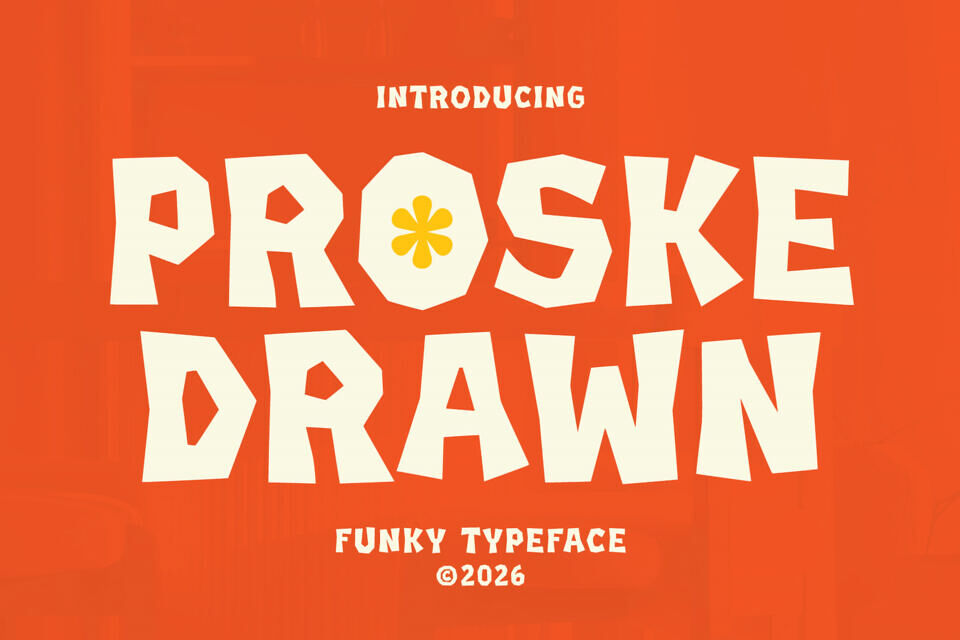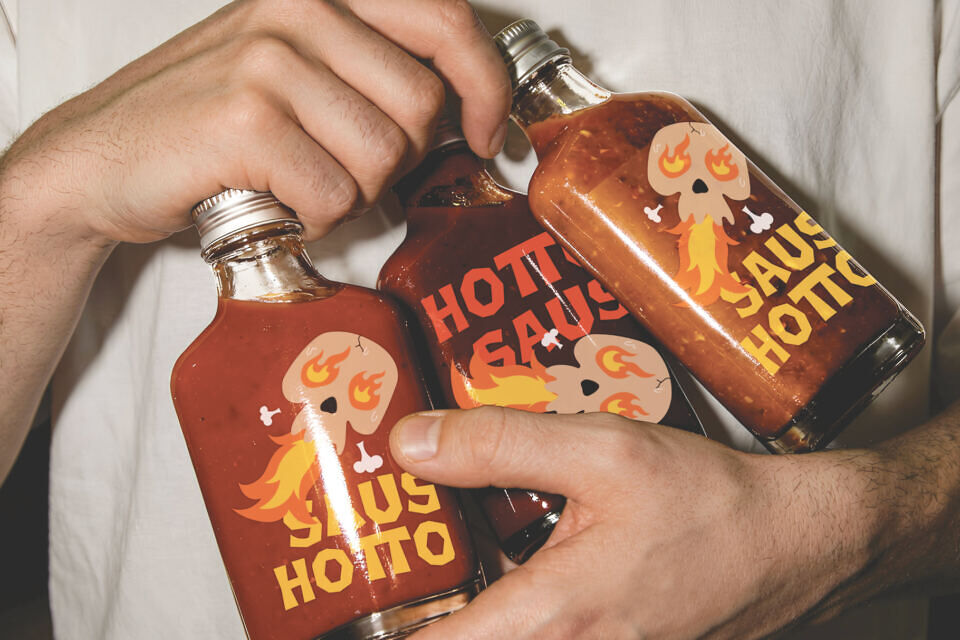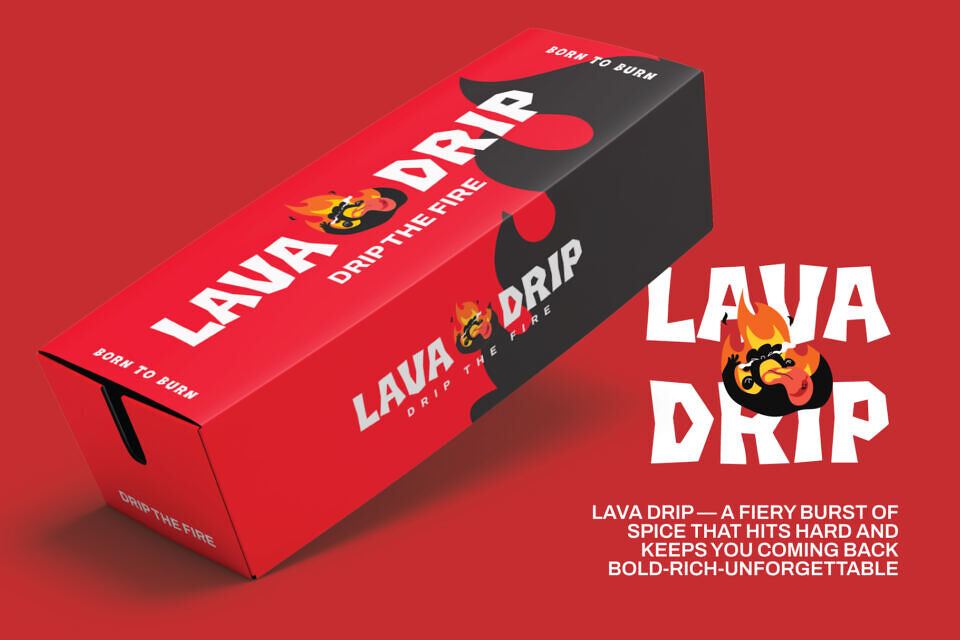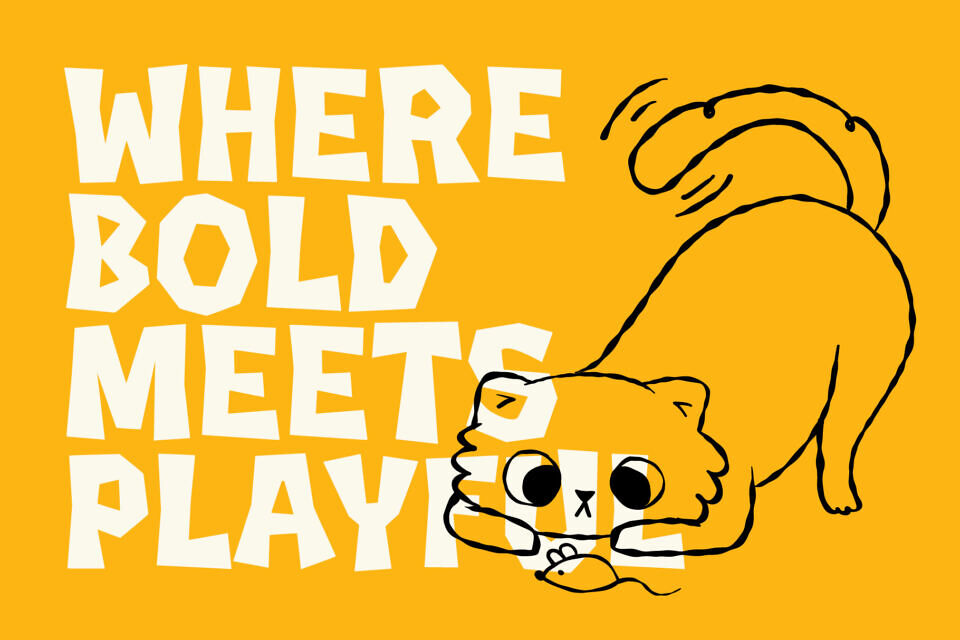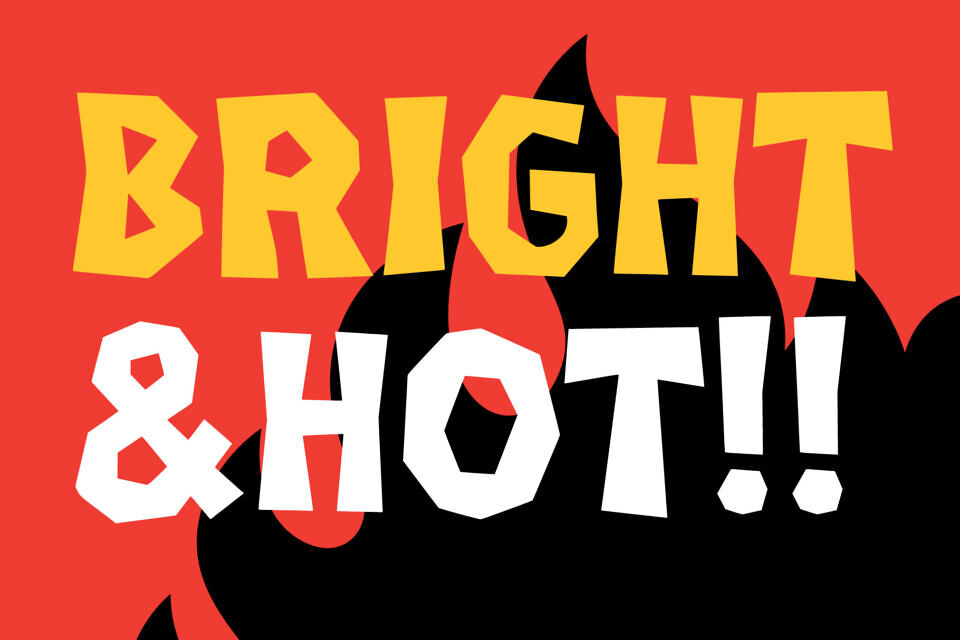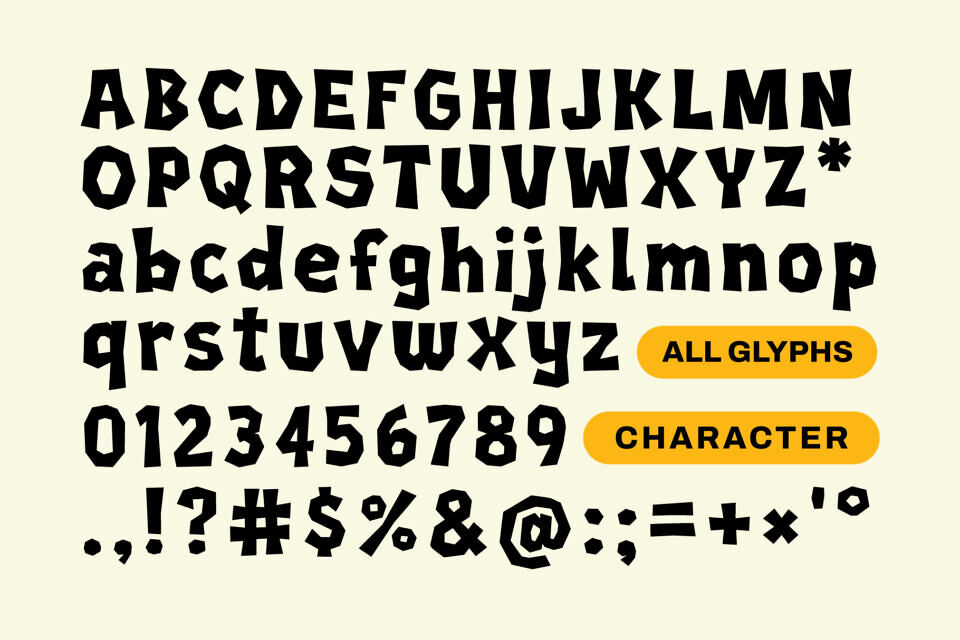
Proske Drawn Font
Proske is a bold and playful display font designed to bring energy and character into your designs. With its heavy weight and playful flower-power accents, Proske Drawn is the premier choice for vintage-inspired snack packaging, independent vinyl record store branding, high-energy festival posters, and high-impact “retro-revival” social media headers.